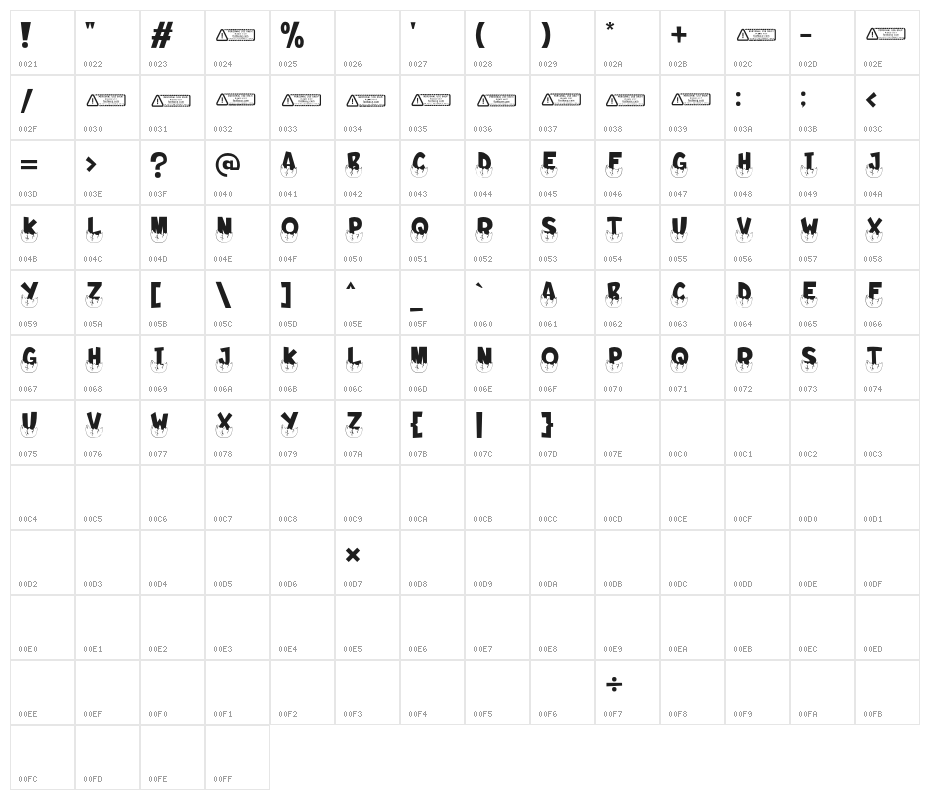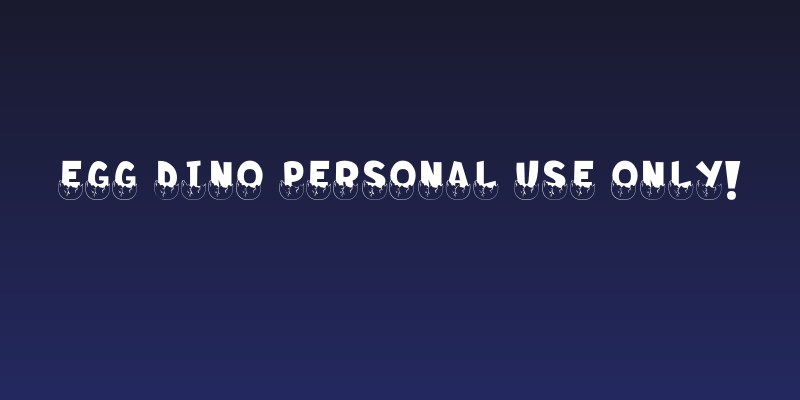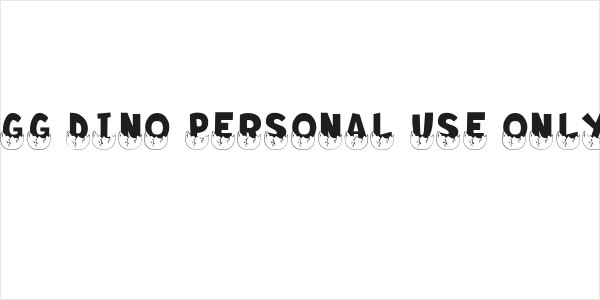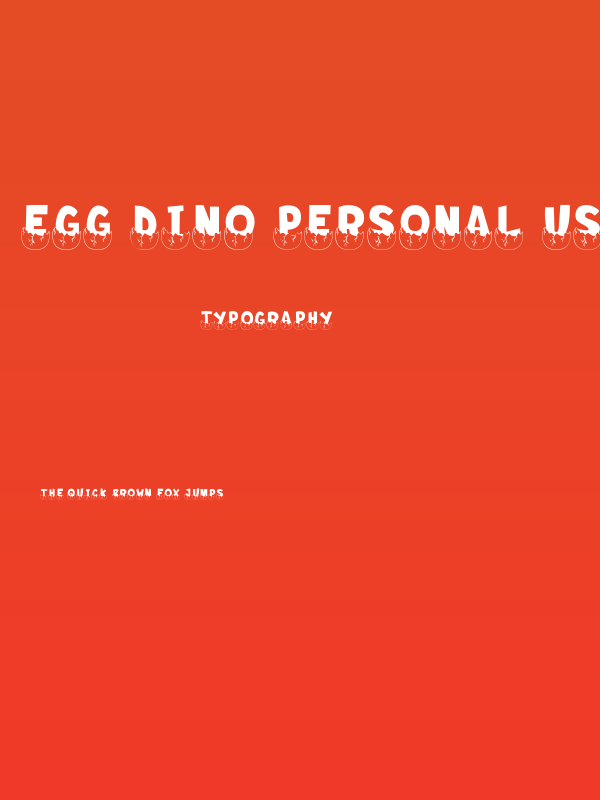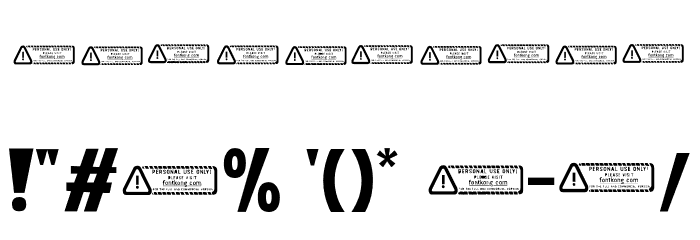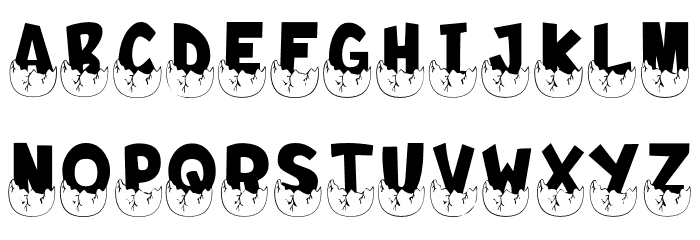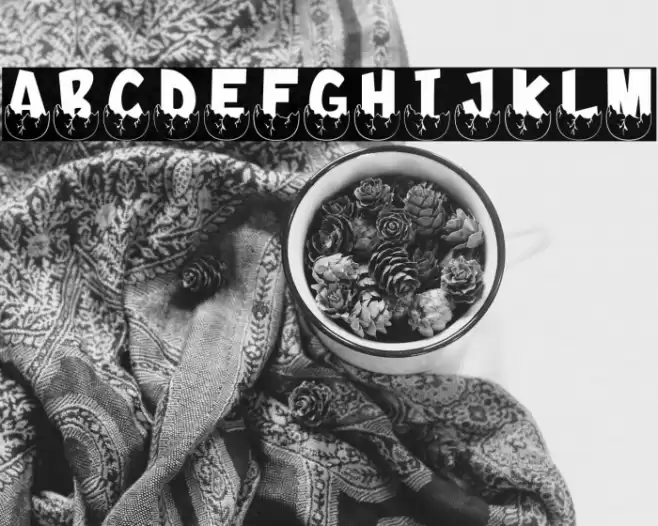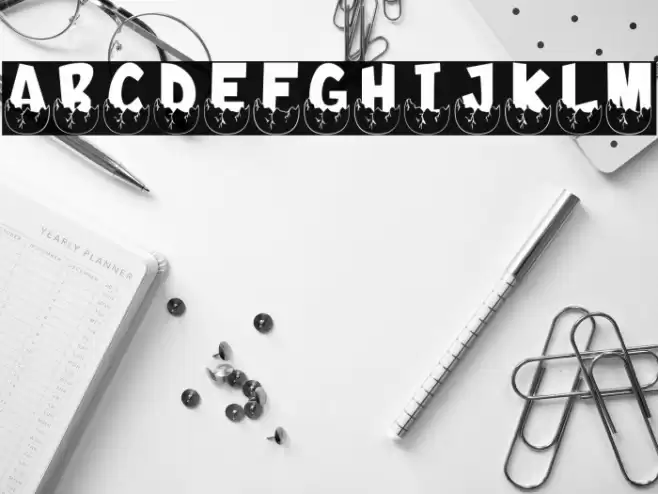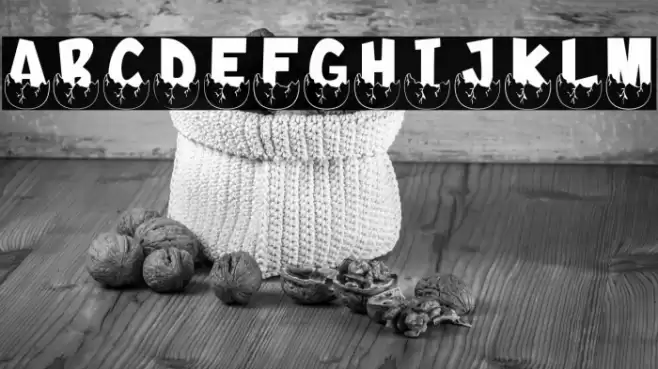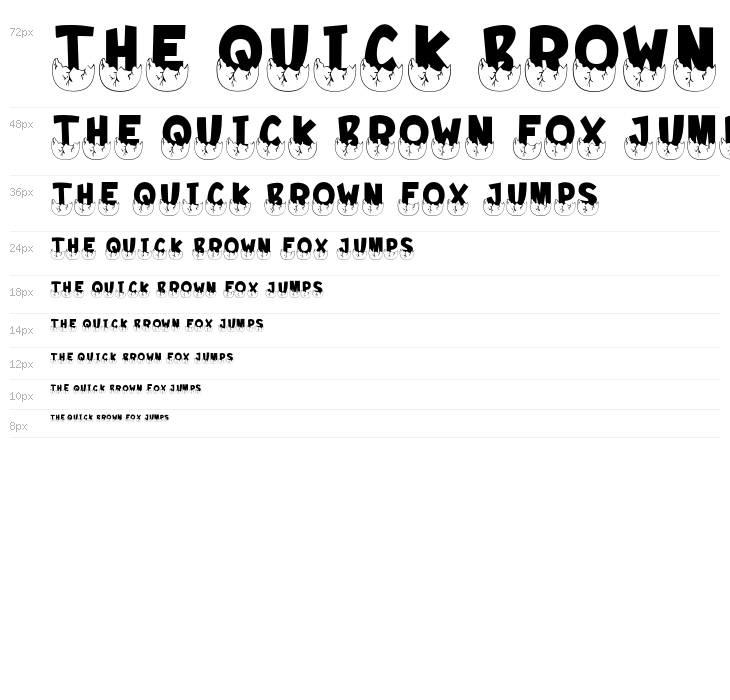
Egg Dino PERSONAL USE ONLY! Font
| Gesamtstil | Playful, Whimsical |
| Anwendungsfall | Headlines, Logos, Decorative text |
| Vorgeschlagene Projekte | Ideal for children's books, playful branding, party invitations, and educational materials. |